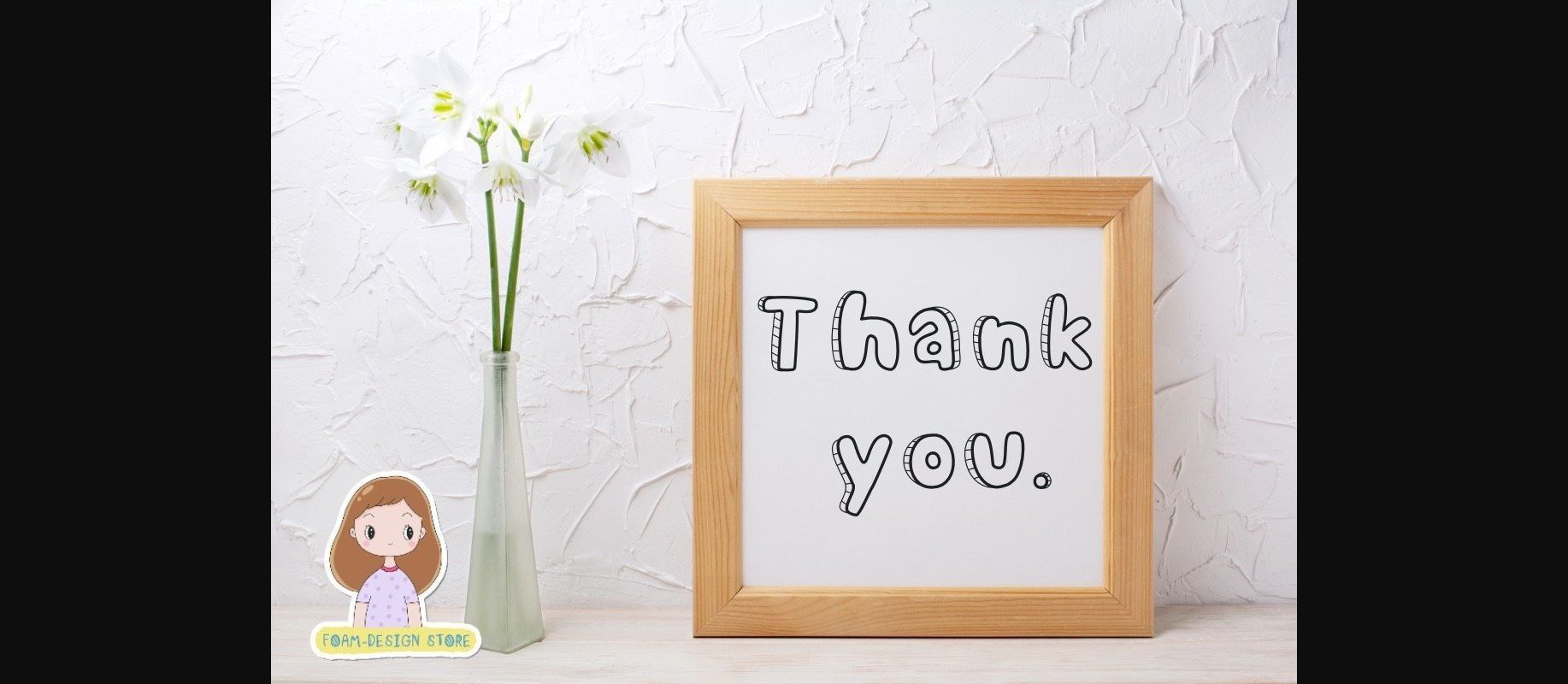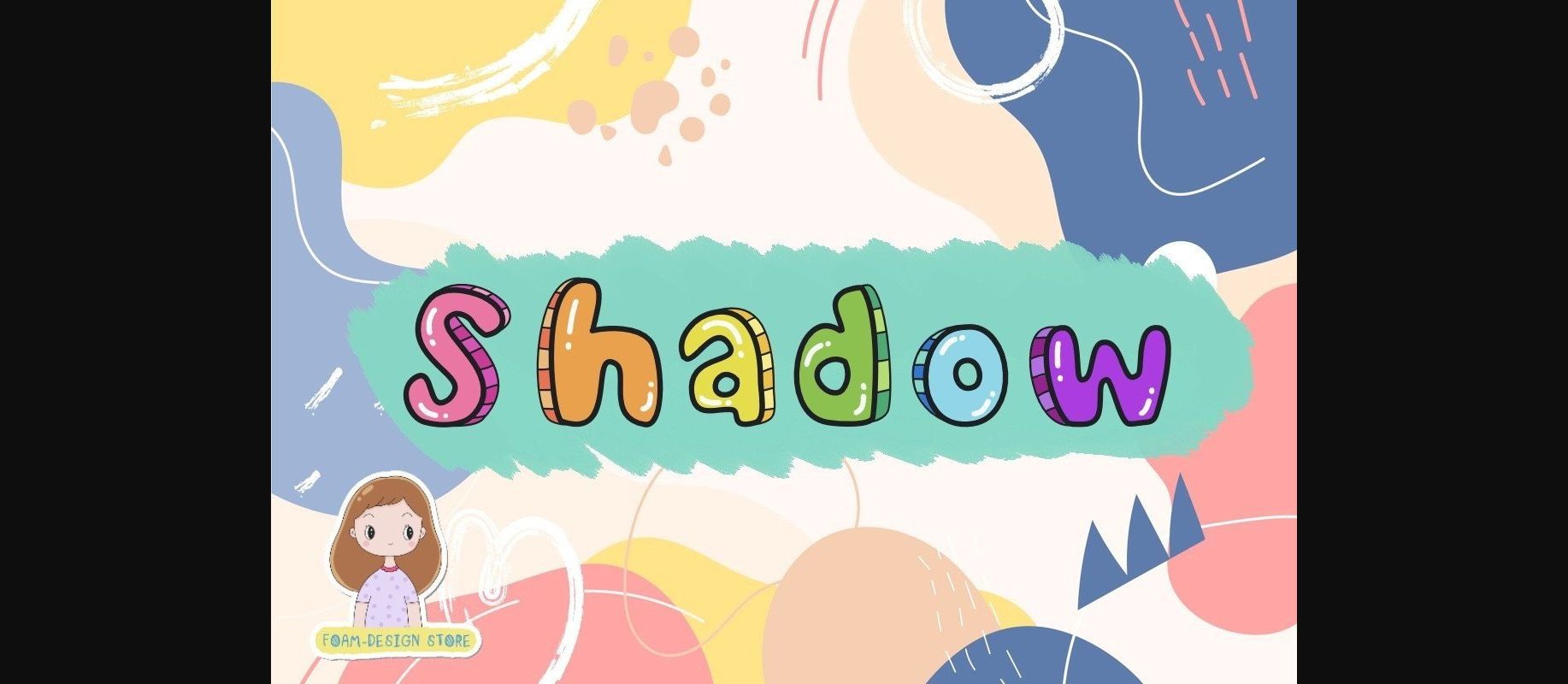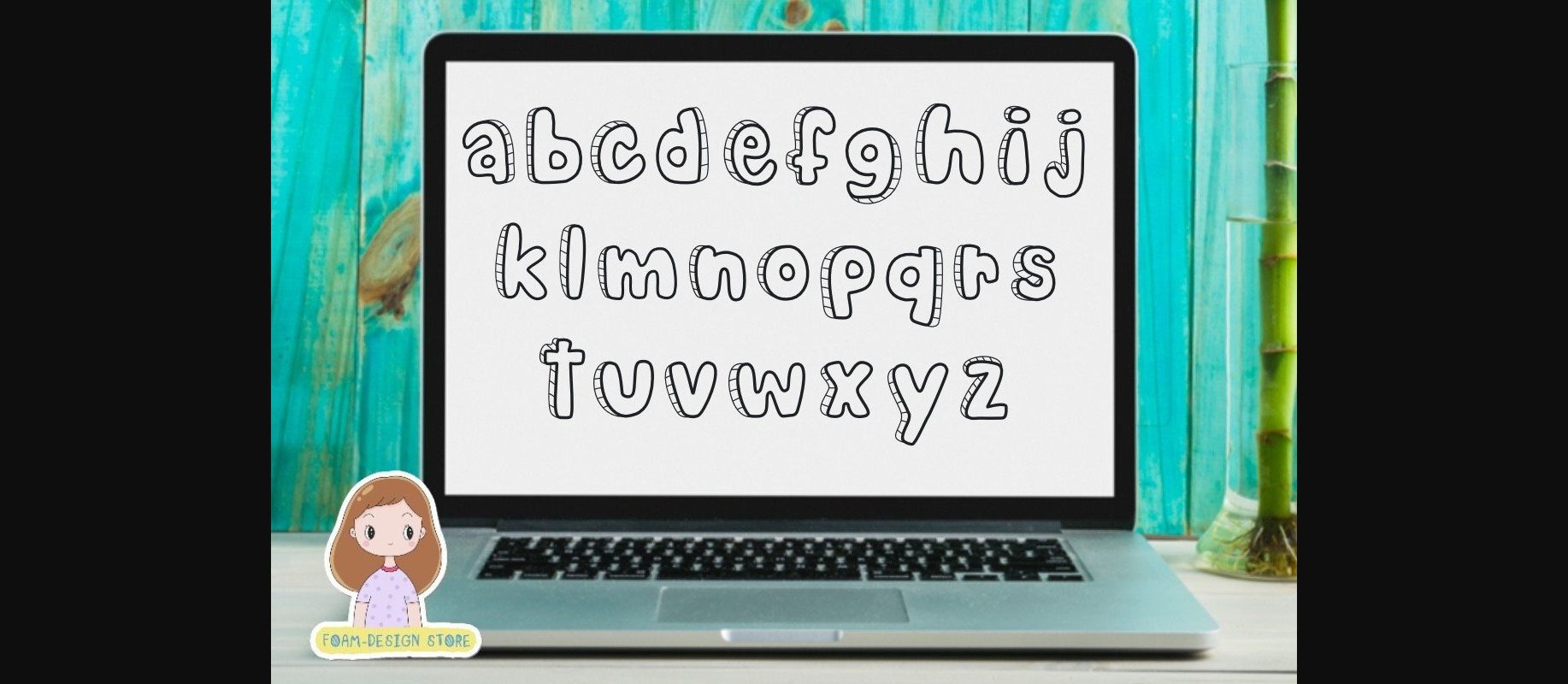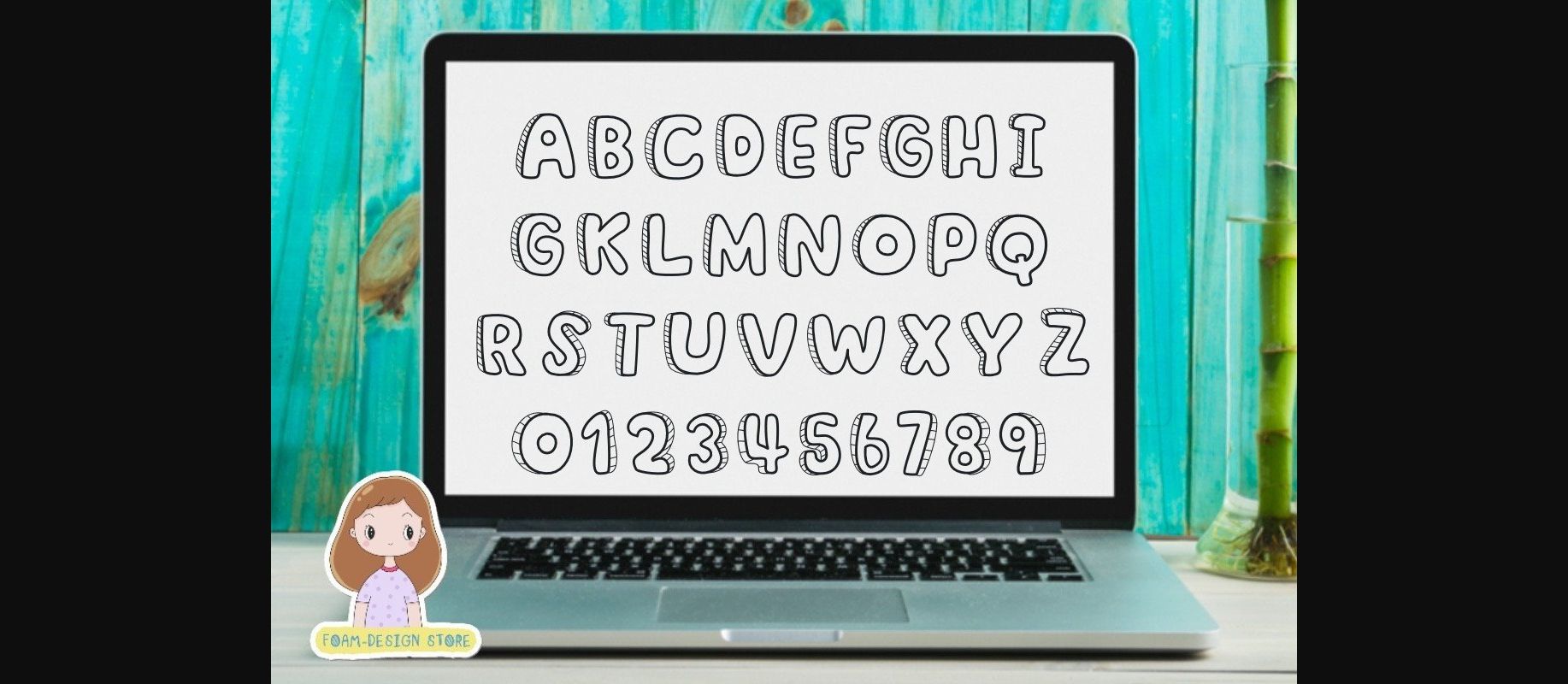
HomeDecorative FontsShadow Font Decorative Fonts Shadow Font FacebookXPinterestWhatsApp 1 of 6 ... Shadow Font Poster 2... Shadow Font Poster 3... Shadow Font Poster 4... Shadow Font Poster 5... Shadow Font Poster 6... About Shadow Font Shadow is a cute and cool decorative font. Its friendly feel makes this font incredibly flexible, fitting a wide range of contexts. Have fun with this trendy font and explore its endless variations. DOWNLOAD NOW People also explored Gaseno – Font Anzim Font Colorado Font Gameday Vibes Font Floure Font Denmark Font Lovely Amora Font The Boss Font Robella Font 322 0 TagsShadowShadow Font Previous articleCow Moo FontNext articlePlanet Space Font LEAVE A REPLY Cancel reply Comment: Please enter your comment! Name:* Please enter your name here Email:* You have entered an incorrect email address! Please enter your email address here Website: Save my name, email, and website in this browser for the next time I comment. Personal Use Free Castina Personal Use Free Read more about this font Penelope Brush Script Font Personal Use Free Read more about this font Drip October Font Personal Use Free Read more about this font Fake Receipt Personal Use Free Read more about this font BLOG Fonts That Capture the Spirit of New York City New York City is more than just a place—it’s an experience, a rhythm, a visual language... Best Fonts for T-Shirt Design – Top 2025 Picks Exploring Font Trends Top 7 Google Fonts Alternatives for Faster and Privacy-Friendly Web Design (2025)